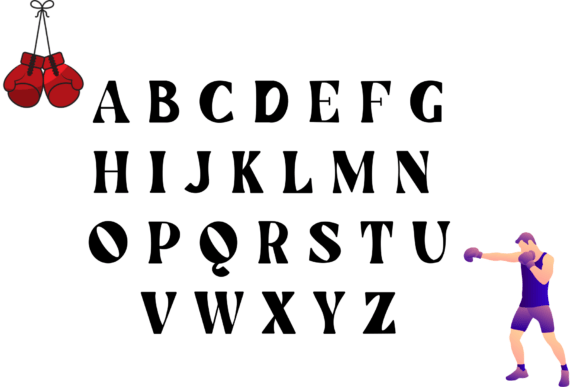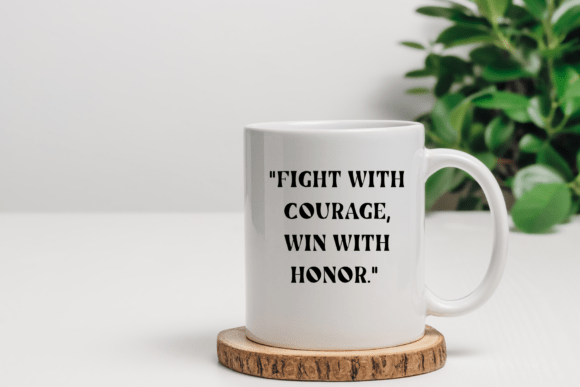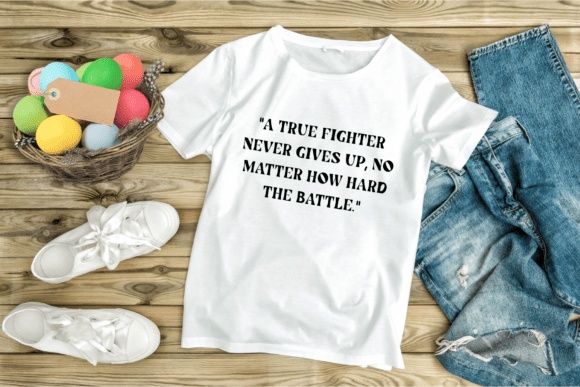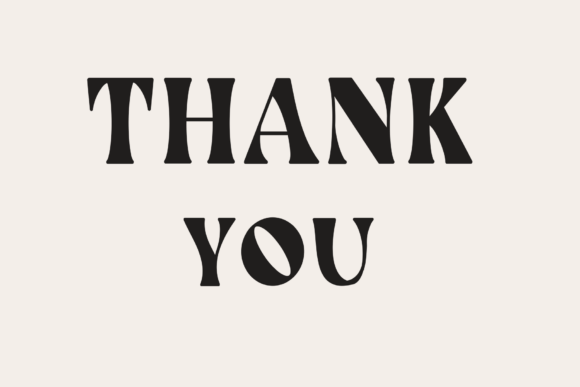
The Knockout Font: Unleashing the Power of Boxing Day
I’ll never forget the design project that led me to discover the Boxing Day Font. I was working on a fitness branding campaign, and my client asked for a bold, attention-grabbing typeface that would make their gym posters and social media graphics stand out. I scoured the internet, tried countless fonts, but nothing seemed to pack the punch I needed. That was until I stumbled upon Boxing Day Font. With its dynamic strokes, bold letterforms, and handcrafted character, this font was the knockout blow my project needed.
So, what makes Boxing Day Font so special? Let’s dive into the good stuff:
• ✨ Dynamic strokes that give it a unique, handcrafted feel
• ✅ Bold letterforms that demand attention
• ✅ Multilingual support for global designs
• ✅ Handcrafted strokes that add an authentic touch
But, like any font, it’s not without its quirks:
• 🤔 Limited use in body text due to its bold nature
• ⚠️ Requires careful kerning to ensure optimal readability
A Practical Guide: Using Boxing Day Font in Your Designs
Now that you’re excited about Boxing Day Font, let’s explore how to use it in your designs:
The Designer Inspiration Behind Boxing Day Font
The story goes that the designer behind Boxing Day Font was inspired by the raw energy of boxing matches. They wanted to create a font that captured the intensity and dynamism of the sport, while also conveying a sense of playfulness and creativity. The result is a font that’s both bold and beautiful.
What makes Boxing Day Font unique? Its dynamic strokes, bold letterforms, and handcrafted character make it a standout font.
Is Boxing Day Font suitable for body text? While it’s possible to use Boxing Day Font for body text, its bold nature makes it more suitable for headlines and attention-grabbing applications.